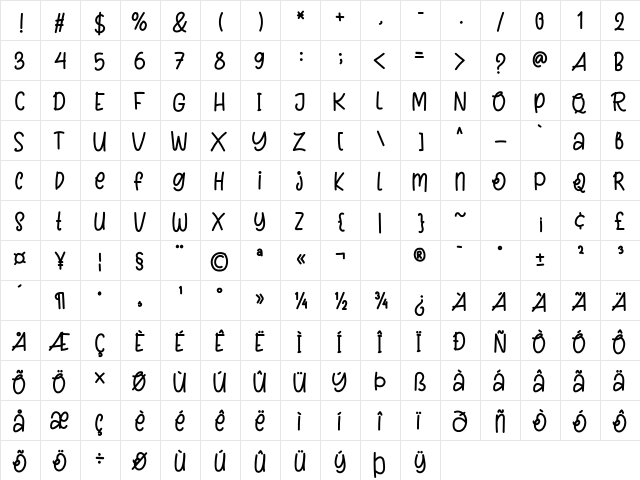
Brown Sugar Regular
| Foundry | EmbunStudio |
| Designer | Aditya Rezki Apriyadi |
Design Context for Brown Sugar Typeface
Brown Sugar takes a measured approach to typography — its balanced proportions and neutral character make it a reliable workhorse for both digital and print work.